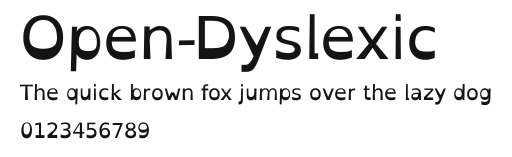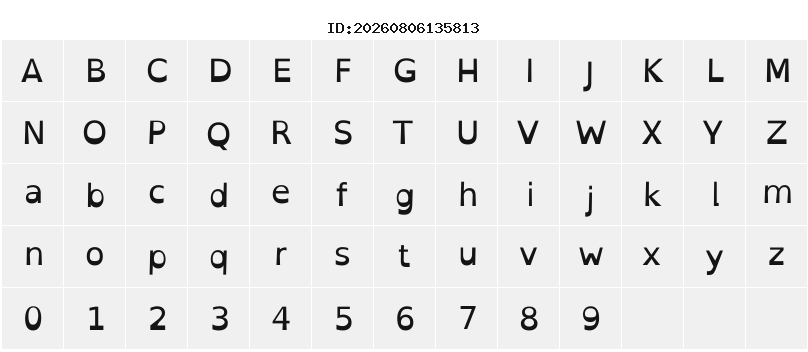
Open-Dyslexic Preview
• Font Name: Open-Dyslexic
• Designer: Abelardo Gonzalez Jr.
About Open-Dyslexic.ttf
Open-Dyslexic.ttf is a modern, elegant sans-serif font designed for ultimate readability and visual harmony. Perfect for branding, headlines, web design, and print materials.